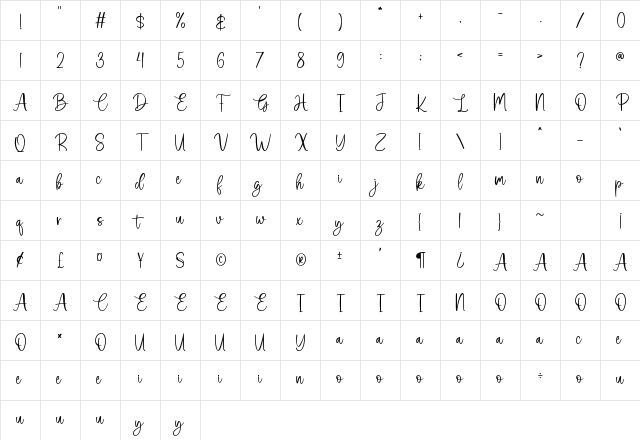
Country Kitchen Regular Free Font
Country Kitchen Regular
Foundry: Graphix Line Studio
Designer: Aldi Raya Pradipta
Design Context for Country Kitchen
Country Kitchen is a composed and adaptable typeface that performs quietly and consistently across a wide range of design contexts.